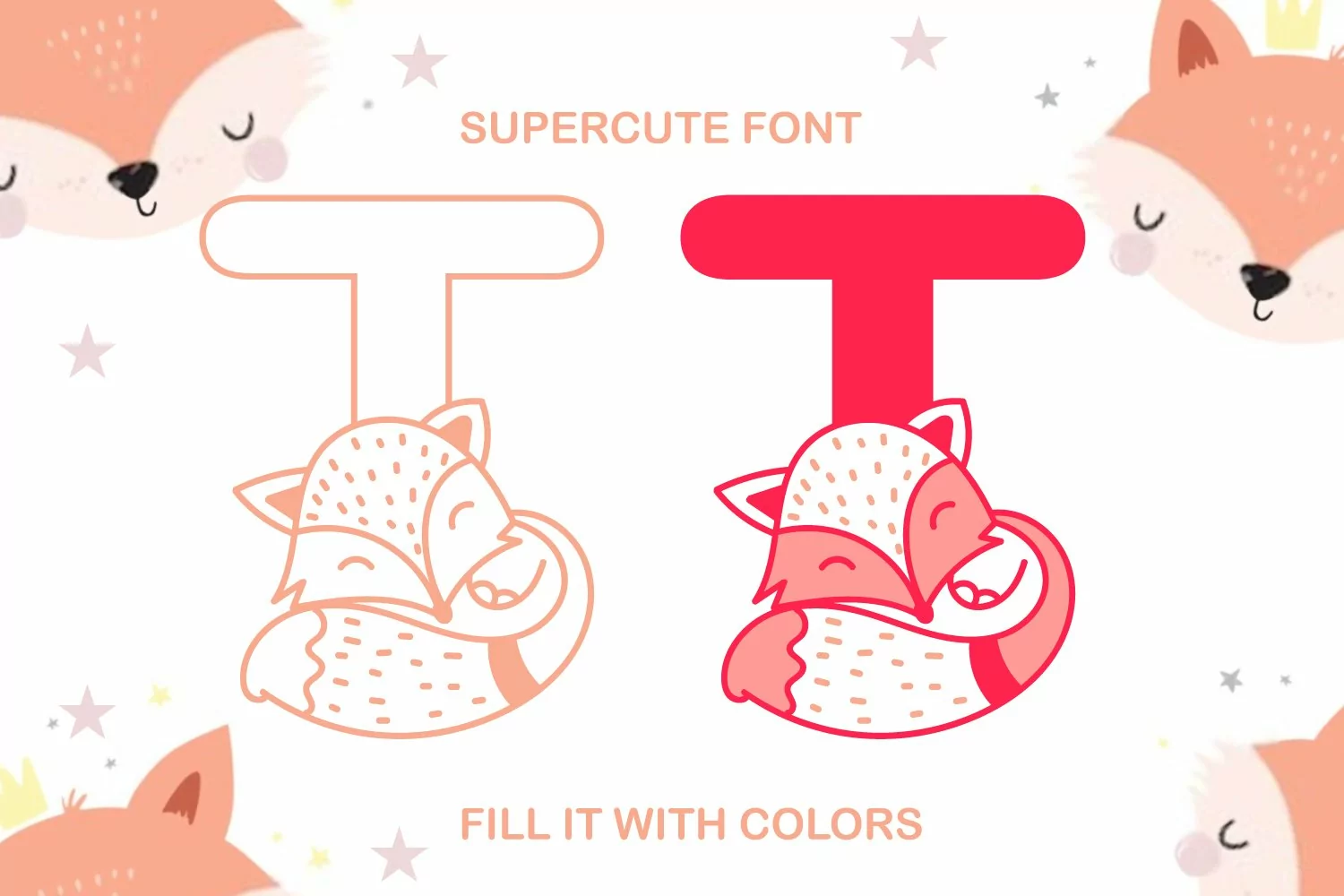
Cutesy Animals - Animals Dingbats Font
Presenting Cute font for you. Baby Fox Alphabet A Cute Papercut Style Colouring Book Font can be used in tons of projects specially for child and new born projects. You can use it for craft purpose and this will looks great on shirts, printing material and other stuff.
2- UPPER Case only Letters A to Z
3- Super Cute and Creative